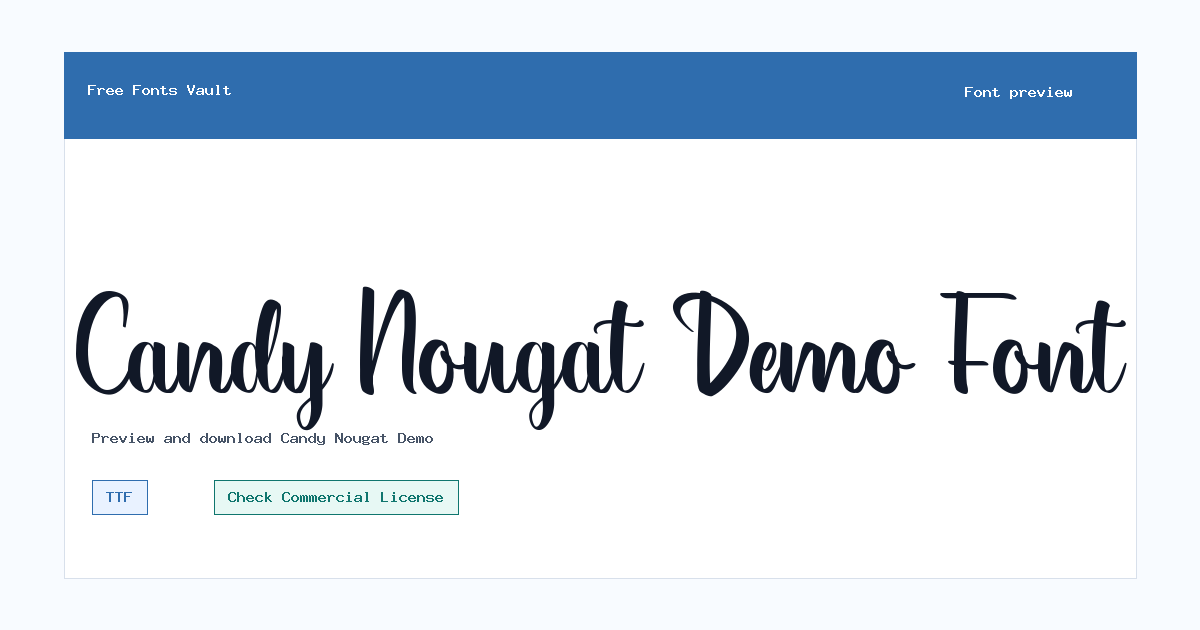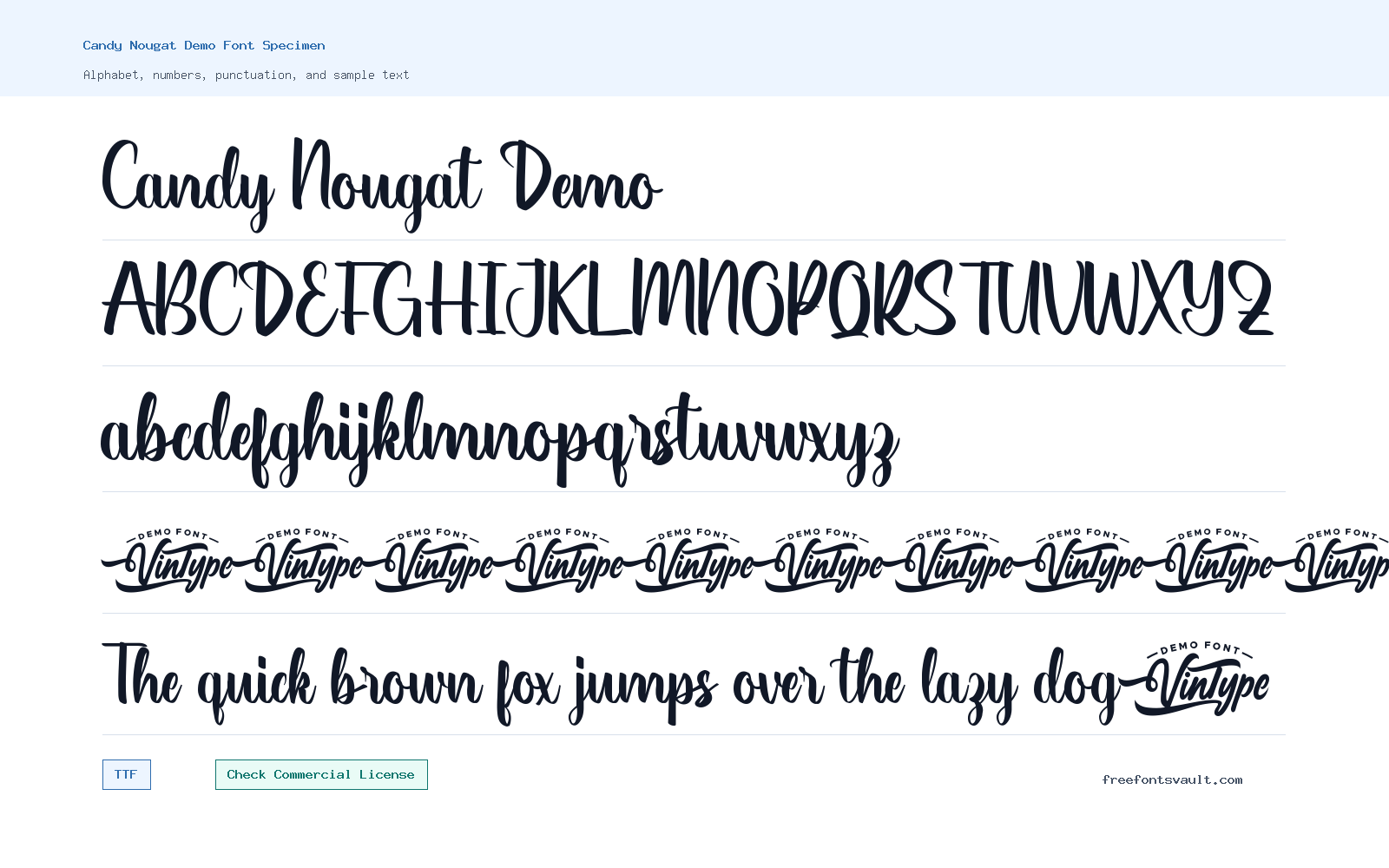
Candy Nougat Demo
- Designer Widiyanti & Sarah SP
- Foundry VinType Studio
Candy Nougat Demo font.
Candy Nougat Demo is a handwritten script font from VinType Studio. It has a sweet, casual feel that works best when the text is short, clear, and meant to stand out.
About Candy Nougat Demo
- Handwritten script style with Latin letters, numbers, punctuation, accented characters, and some extra glyphs reported by font listings
- Invitations, greeting cards, tags, and decorative headings
- Short branding drafts, social posts, packaging mockups, and quote graphics for personal projects
Candy Nougat Demo is credited to Widiyanti & Sarah SP and VinType Studio, with VinType listed as the related studio/foundry.
Who designed Candy Nougat Demo?
The font is credited to Widiyanti & Sarah SP, with VinType Studio listed as the foundry or studio.
What kind of projects is this font good for?
It is best for short decorative text such as cards, labels, invitations, social graphics, and display headings. It is not ideal for long paragraphs.